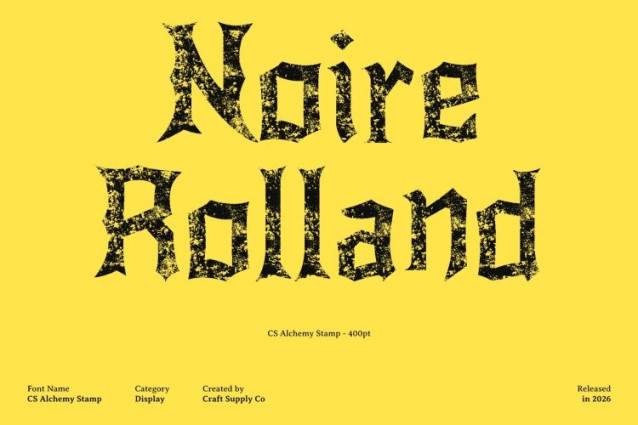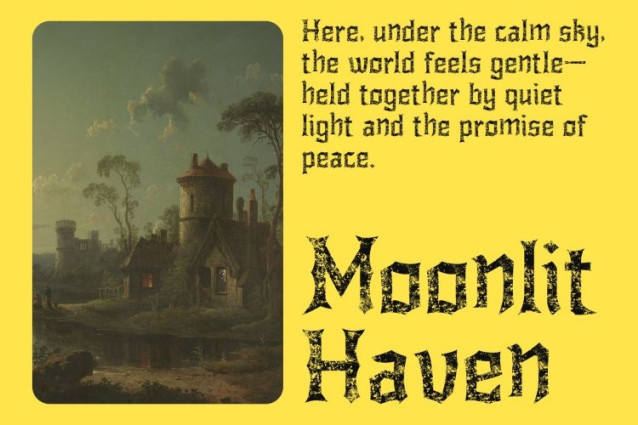
CS Alchemy Stamp Font
CS Alchemy Stamp Font This is a black metal display font that embodies raw energy, rebellion, and primal darkness. Built with jagged spikes, chaotic strokes, and razor-sharp edges, this typeface delivers an aggressive and untamed visual impact. The added stamp effect introduces worn details and irregular textures, giving each letterform a distressed, old-world character that feels brutal, menacing, and unapologetically fierce.
Aggressive Letterforms with Chaotic Energy
At its core, this font thrives on disorder. Uneven structures, spiked silhouettes, and distorted rhythm create a wild and anarchic presence. The rough stamp texture amplifies the chaos, adding grit and imperfection that enhance its rebellious nature. This raw visual noise captures attention instantly, making it ideal for designs that aim to provoke, dominate, and intimidate.
Dark Aesthetic with Vintage Artistic Expression
Beyond aggression, this font carries a deep artistic identity rooted in darkness and age. The handcrafted stamp texture introduces a vintage, weathered feel evoking old rituals, underground movements, and obscure metal heritage. This fusion of brutality and artistry reflects both the violence and beauty of extreme music culture.
Perfect for Bold, Edgy, and Underground Projects
Designed for band logos, metal posters, album covers, underground fashion, and dark visual art, this font excels in extreme creative spaces. Its vintage stamp character and raw intensity bring authenticity and power to every composition, making each design feel ancient, forbidden, and relentlessly.